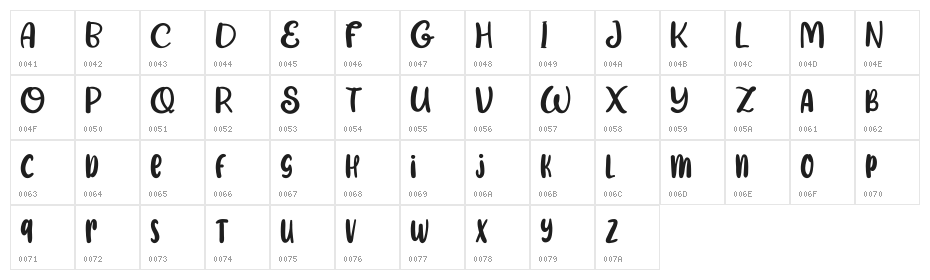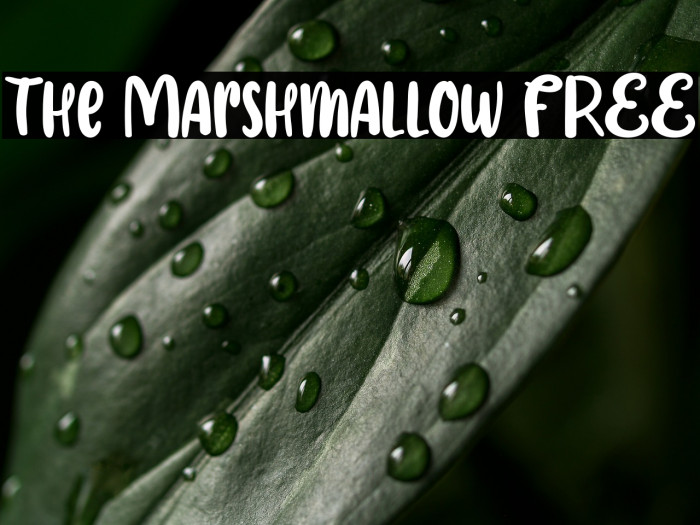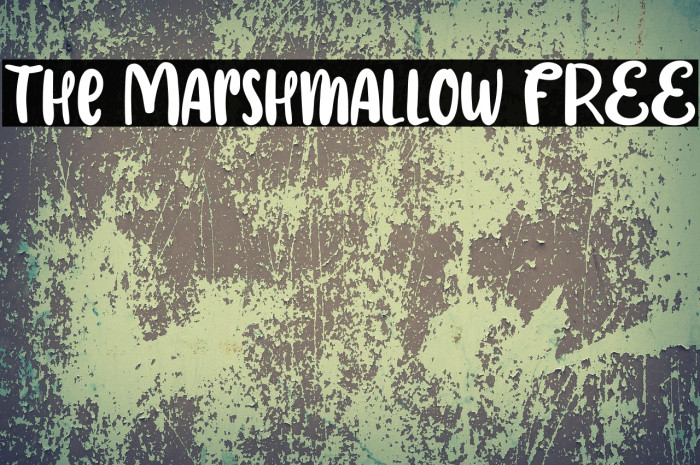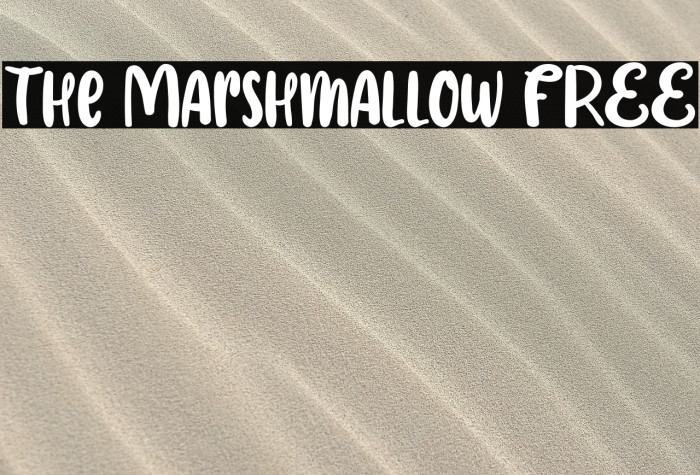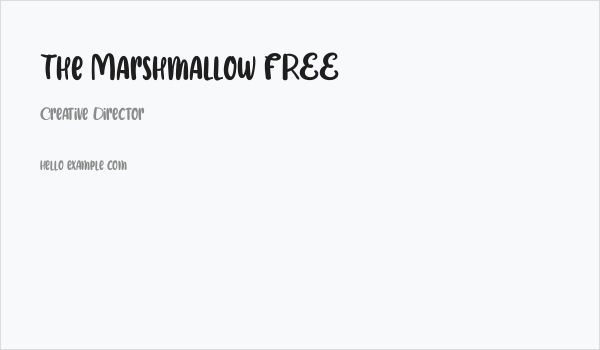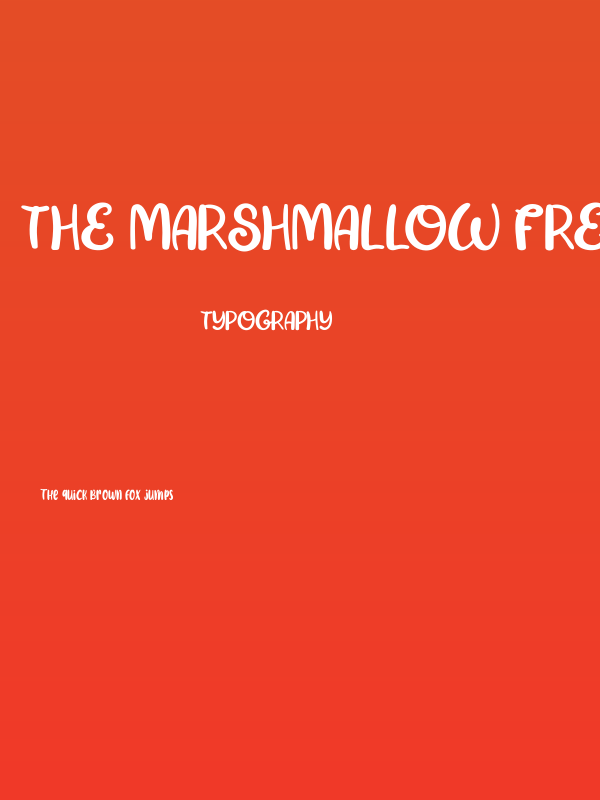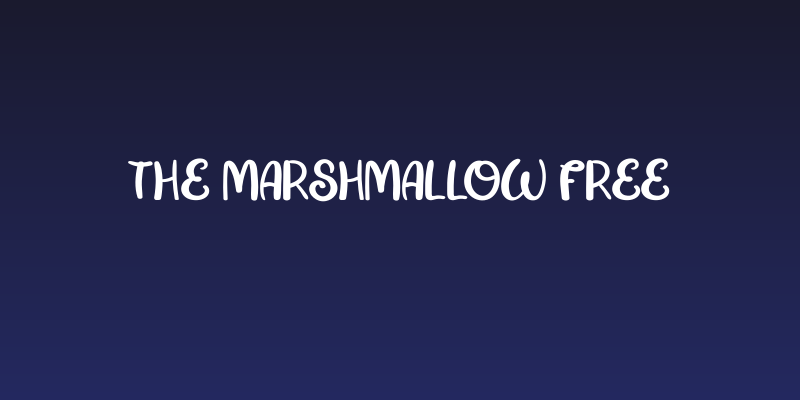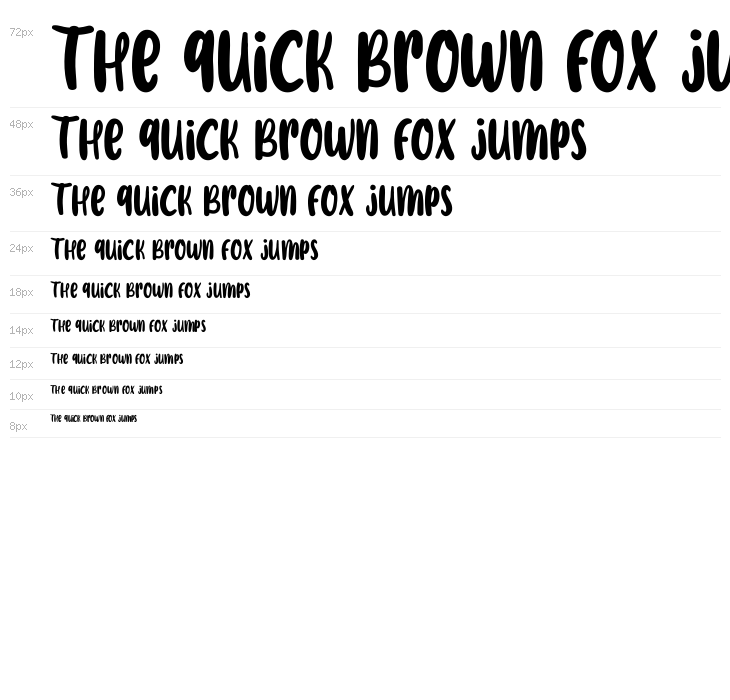
The Marshmallow FREE Font
The Marshmallow FREE Description
This playful and whimsical font features a bold, rounded style with a hand-drawn appearance. The characters are thick and slightly irregular, giving them a friendly and approachable feel. The uppercase and lowercase letters maintain a consistent style, with smooth curves and a slightly condensed form. The font's design is reminiscent of casual handwriting, making it ideal for projects that require a personal touch. Its boldness ensures readability, while the unique character shapes add a touch of creativity and fun.
| Proposed Projects | Perfect for children's books, playful branding, greeting cards, and social media graphics. |